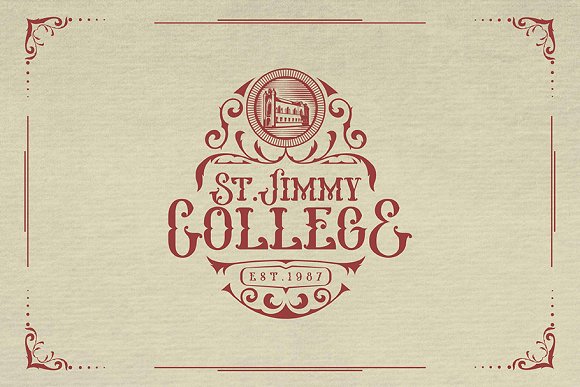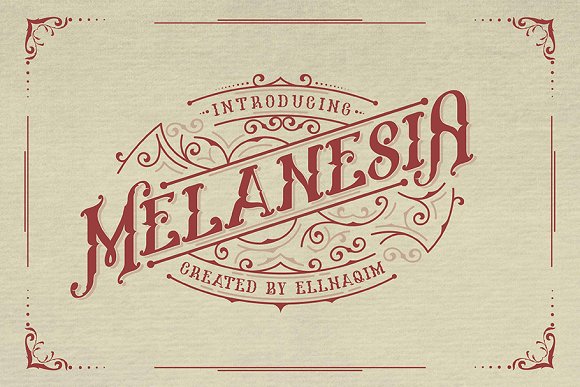
Melanesia Font and Free Illustration
Introducing Melanesia Includes 2 Style Fonts.
Melanesia is perfect for beverage label design project, coffee label, logotype design, greeting card or a package design, or even a brand identity, craft design, any DIY project, book title, wedding font, pop vintage design, retro design or any purpose to make your art / design project look pretty and trendy.